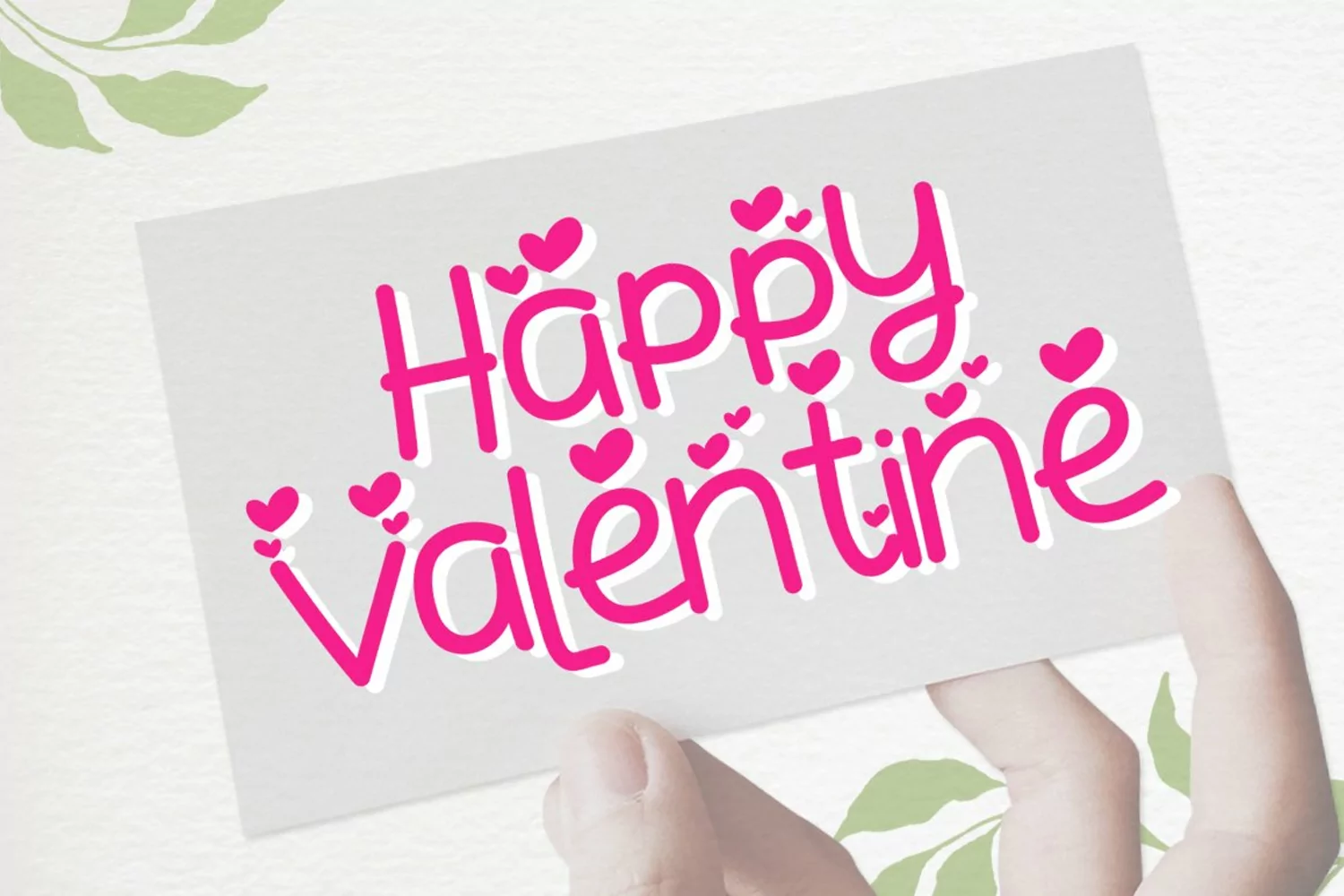
Small Bunny is a display font mix with two character styles. Made it special for Valentine's and Easter Season.
Suitable for you who needs a typeface for greeting cards, logotype, Easter invitations, Valentines day, branding, book cover, packaging, advertising, watermark, merchandise or make a craft gift, etc. This typeface is comes in uppercase, lowercase, punctuation's, symbols & numerals, support opentype features in Private Use Area (PUA) Unicode.
Stylistic set in 2 alternate, ligatures, etc. Also support multilingual.